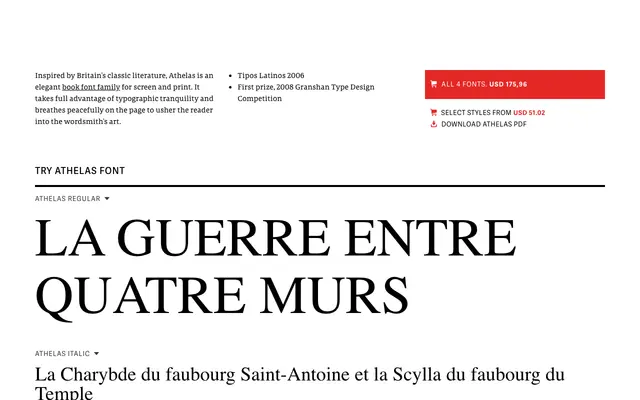
Athelas
TypeTogether · José Scaglione & Veronika Burian · 2008
An elegant four-style book serif chosen by Apple for iBooks and macOS, with Cyrillic, Greek and Arabic companion extensions.
Athelas prioritises reading comfort through open counters, fluid letterforms and graceful serifs suited equally to screen and print. Its four-style Latin core — Regular, Italic, Bold and Bold Italic — is extended by separate Cyrillic, monotonic Greek and Arabic companions. First prize at the 2008 Granshan Type Design Competition.
Elegant book serif with open counters and graceful serifs; used in Apple iBooks and macOS; Cyrillic and Greek extensions available